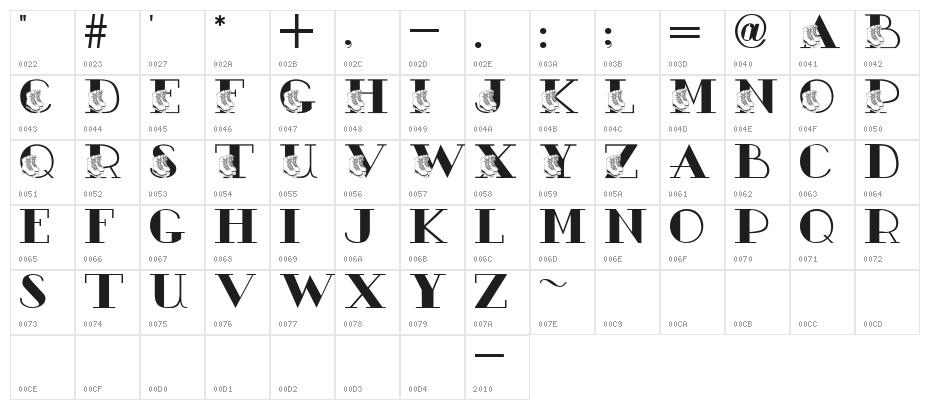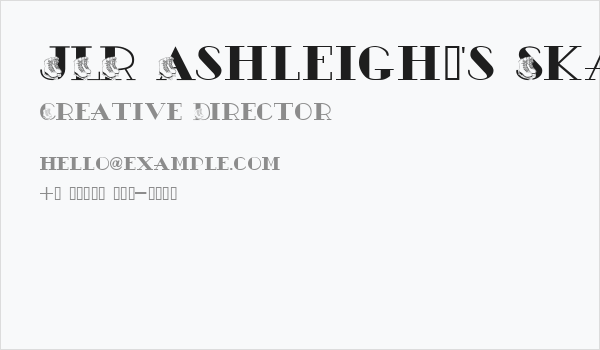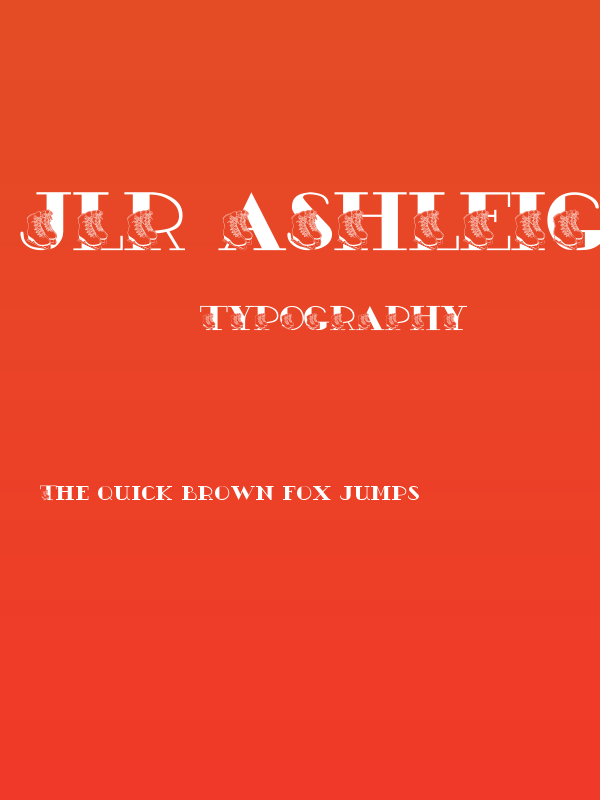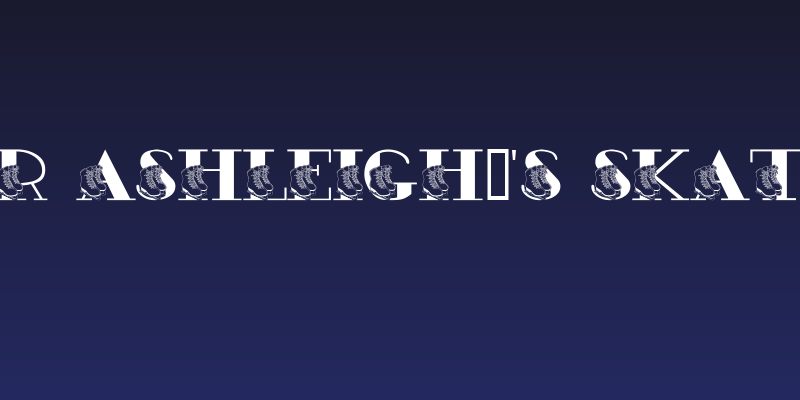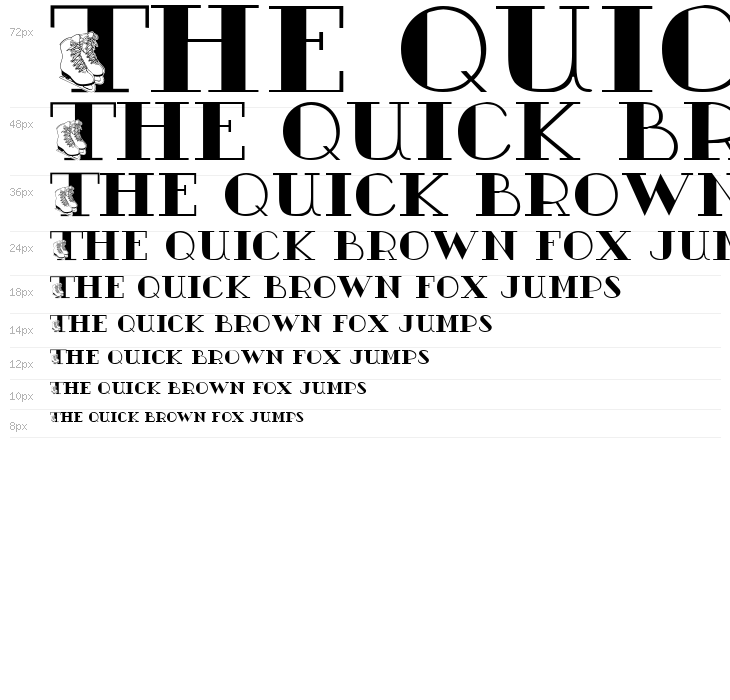
JLR Ashleigh's Skates Font
JLR Ashleigh's Skates Description
This decorative font features a unique blend of classic serif elements with playful illustrations integrated into the uppercase letters. Each capital letter is adorned with a small, detailed figure, adding a whimsical touch to the otherwise traditional serif design. The lowercase letters maintain a more conventional serif style, providing a balanced contrast to the ornate capitals. The font includes a full set of uppercase and lowercase letters, numerals, and a selection of special characters. The overall design is both elegant and playful, making it suitable for creative projects that require a touch of personality.
| Proposed Projects | Ideal for children's book covers, playful branding, or whimsical invitations. |